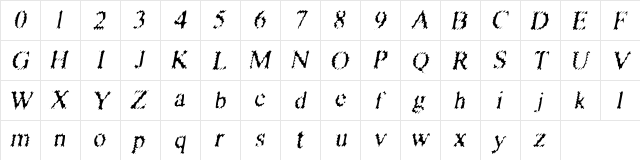
Riquoth Regular
Design Context for Riquoth Typeface
Riquoth offers clean, dependable letterforms without strong stylistic allegiance, making it a practical choice for designers who need flexibility.